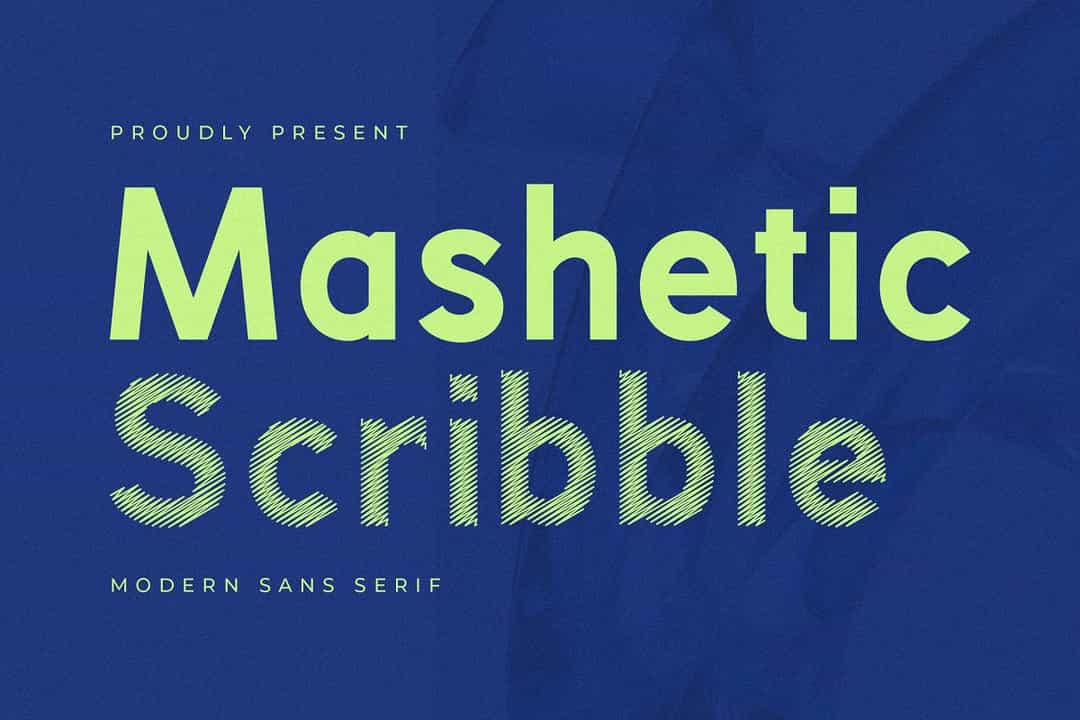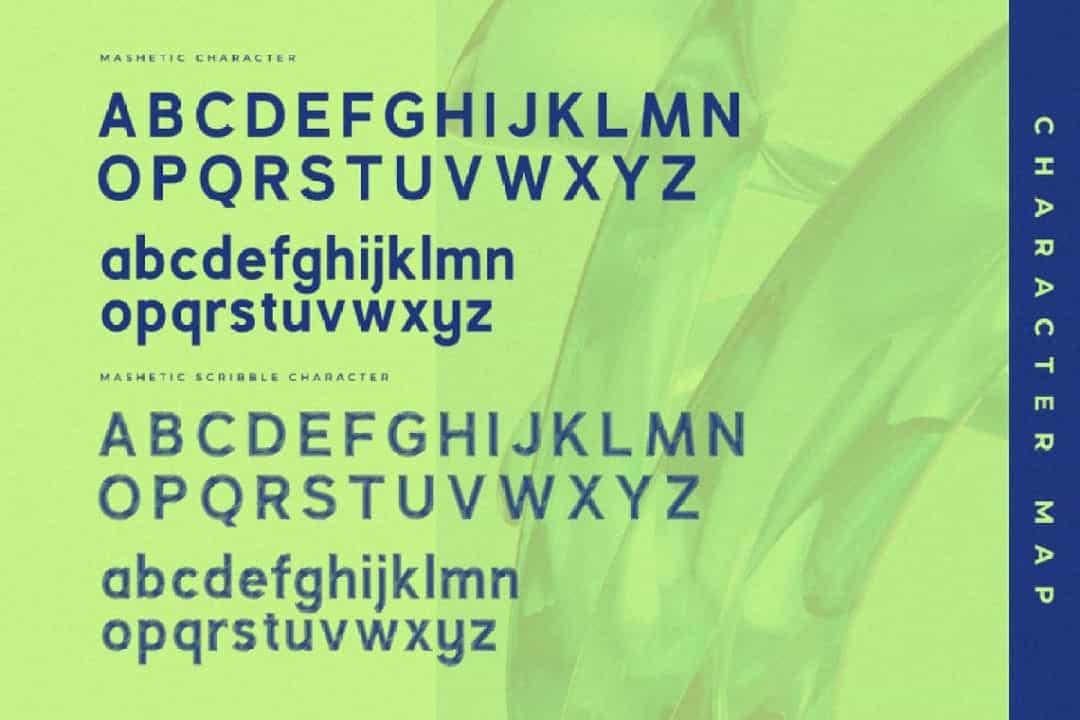
Mashetic can be described as an aggressive and bold sans serif font that adds visual impact to any design project. No matter its subject matter, Mashetic makes an outstanding addition to your font collection; perfect for logos, movie/book titles, clothing brands/lines/magazine letters/quotes etc.